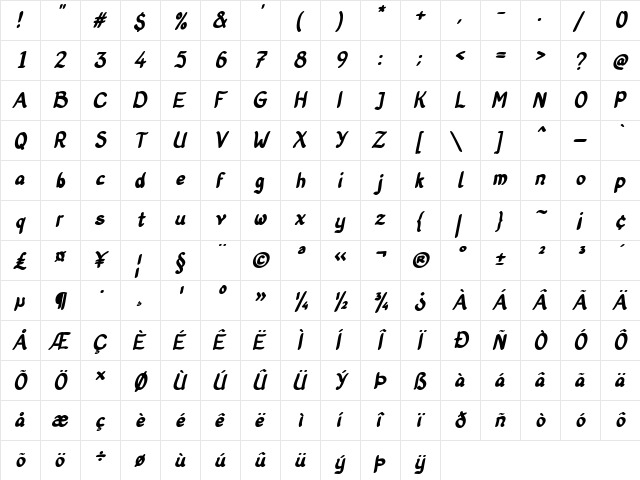
Old Story Bold Italic
Design Context for Old Story Typeface
Old Story is a composed and adaptable typeface that performs quietly and consistently across a wide range of design contexts. Its italic angle brings a sense of urgency and motion to the letterforms. Its bold stroke weight gives it real presence on the page.
Pro Tip: Use Old Story for emphasis, pull quotes, and subheadings where its slanted energy can add rhythm to the layout.